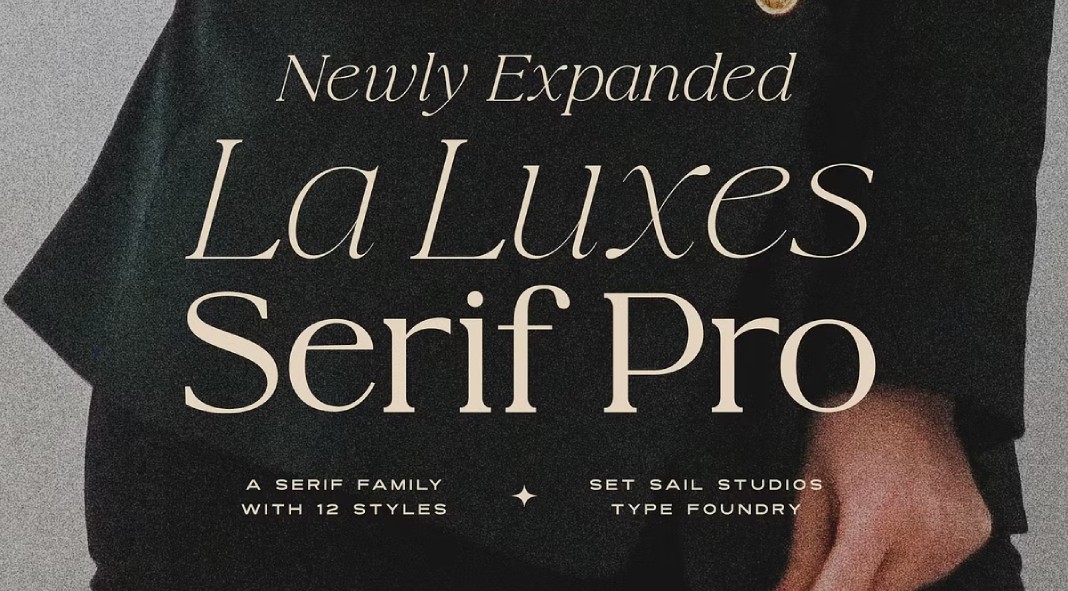
We all know that fonts are the backbone of any visual design. Whether it’s a website, a logo, or a book cover, they do a lot more than just display words. They convey emotion, tone, and personality. But what happens when you want a font that’s both sophisticated and versatile? What if you need a typeface that can work just as well in a bold headline as it does in delicate body text? This is where the La Luxes Serif Pro font family, created by the talented Sam Parrett, comes into its own. It is a carefully crafted tool that can unlock a whole new world of creative possibilities.
This isn’t just about letters on a screen. It’s about how we communicate and express ourselves through visual language. It’s about capturing attention, making a statement, and leaving a lasting impression. Sam Parrett’s work with fonts is a constant evolution, an ongoing quest to create something truly remarkable. And that is exactly what has happened with La Luxes. It goes beyond just looking good; it’s about providing designers and creatives with the tools they need to bring their visions to life. But what makes La Luxes Serif Pro so special? Why should you care about adding it to your design toolkit? Keep reading, and let’s explore the world of this beautiful font family.
Meet the Extended Family: La Luxes Serif Pro
The original La Luxes font duo was already a knockout. But Sam Parrett has now taken it to a whole new level. Say hello to La Luxes Serif Pro! This major update isn’t just a minor tweak. It’s a full-blown expansion that has turned a single font into a complete family. We are talking about 12 fonts in total. This includes six distinct weights, ranging from light and airy to bold and impactful. Moreover, each of these weights has its own italic variation. Think of the possibilities! You have a vast toolbox, ready for any project that comes your way.
This expanded flexibility is crucial. Why? It gives you the freedom to craft anything from a refined logo to dynamic headlines to elegant branding. Do you need a delicate touch for a wedding invitation? La Luxes Serif Pro has you covered. How about a powerful headline for a magazine spread? La Luxes delivers. What about a consistent look across all your marketing materials? No problem; the family has it. In short, it’s about offering the greatest possible versatility without compromising the underlying elegance that makes La Luxes Serif Pro so very special.
The Magic is in the Details: Ligatures and Special Characters
Now, let’s get into the specifics that truly set La Luxes Serif Pro apart. One of the standout features of this font family is the inclusion of ligatures. These aren’t just ordinary pairings. Ligatures are special, unique letter combinations that give a more polished and sophisticated look. They add that touch of flair, that je ne sais quoi that takes a design from nice to unforgettable. To use these ligatures, just enable ‘Discretionary Ligatures’ in your design software. This little trick opens up a world of new visual possibilities.
Besides ligatures, La Luxes Serif Pro also boasts a set of raised ‘small caps.’ These are accessible by turning on ‘Stylistic Alternates.’ They can be incredibly useful for adding hierarchy to your text or giving it a more refined look. All the characters can also be easily selected through a Glyphs panel. Also, the fact that the fonts are PUA encoded means you can copy and paste ligatures from Character Map (Windows) or Font Book (Mac) even in software that doesn’t fully support them, like Canva. This added accessibility makes La Luxes a great font choice for designers of every experience level. The attention to detail is what makes it stand out.
Language Without Borders: Extensive Language Support
Have you ever encountered a beautiful font only to realize it doesn’t support the language you need? That is frustrating, right? Well, that won’t be a problem with La Luxes Serif Pro! This font has extensive language support and has been created to be inclusive. It supports a wide range of languages. Namely, it works with English, French, Italian, Spanish, Portuguese, German, Swedish, Norwegian, Danish, Dutch, Finnish, Indonesian, Malay, Hungarian, Polish, Turkish, and Slovenian.
This language support is not just about practicalities. It is about creating designs that resonate globally. When you are not limited by language barriers, you can reach a wider audience with your message. This makes La Luxes an excellent font for businesses and creatives that work across international markets. It ensures your message is not only beautiful but also universally understood. In essence, this is a typeface that has no language barriers and truly spans across continents.
Why La Luxes Deserves a Place in Your Design Toolkit
So, why should you consider using La Luxes Serif Pro for your next project? The answer is simple: its versatility, elegance, and attention to detail. This font family is more than just a collection of letters; it’s a carefully crafted tool designed to enhance your visual communication. It doesn’t matter if you are crafting a high-end logo or laying out a magazine page, La Luxes will elevate your designs to new heights.
It’s clear that Sam Parrett has poured a lot of thought and care into creating this font family. It goes beyond simply being functional and makes a statement of its own. The inclusion of ligatures, the availability of multiple weights, and the broad language support make La Luxes Serif Pro a truly exceptional choice for any designer. It’s the kind of font that can truly transform a project, adding that extra layer of sophistication and polish. What will you create with the amazing power of La Luxes? It’s time to unleash the potential of your ideas with this amazing font.